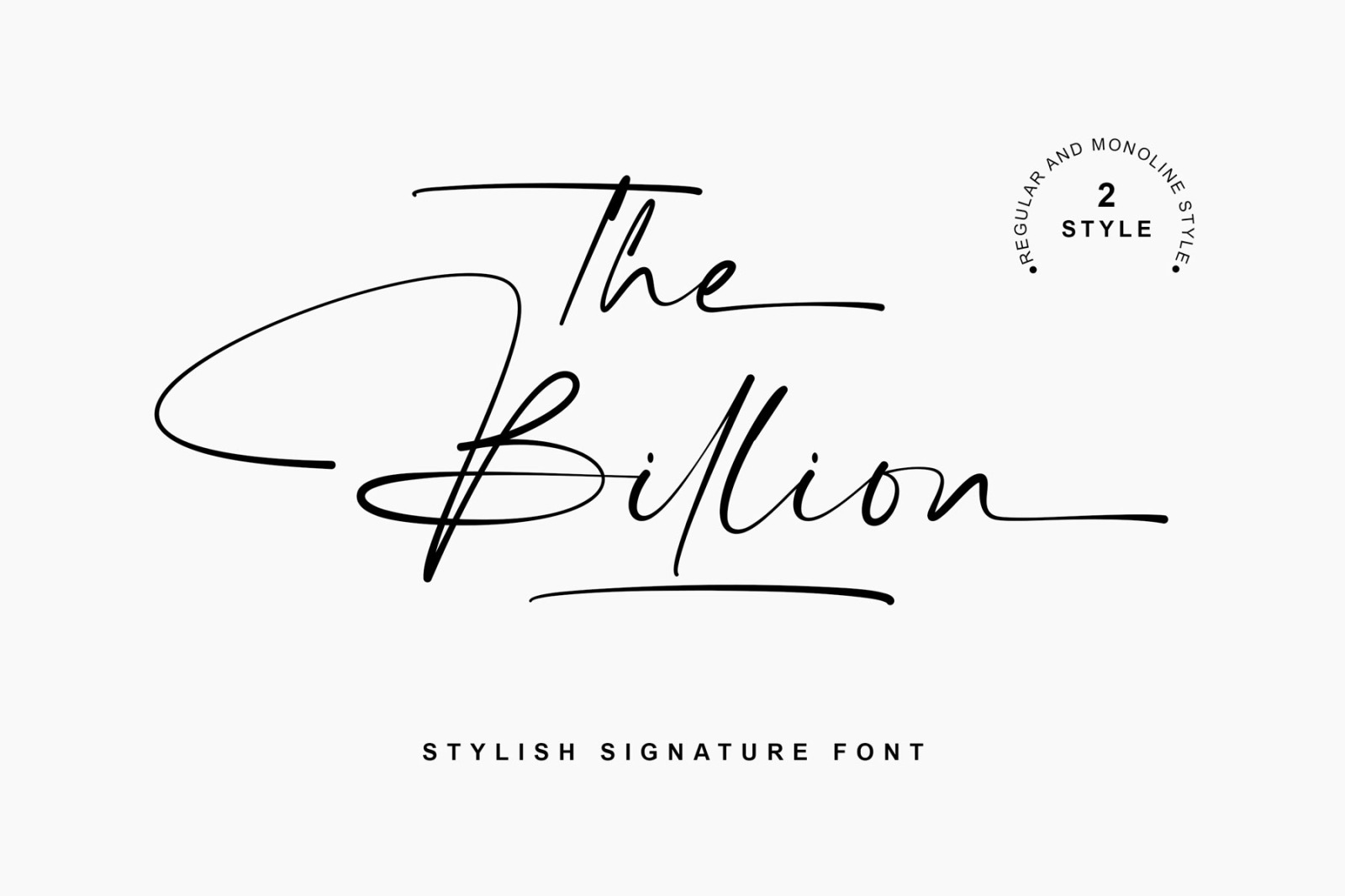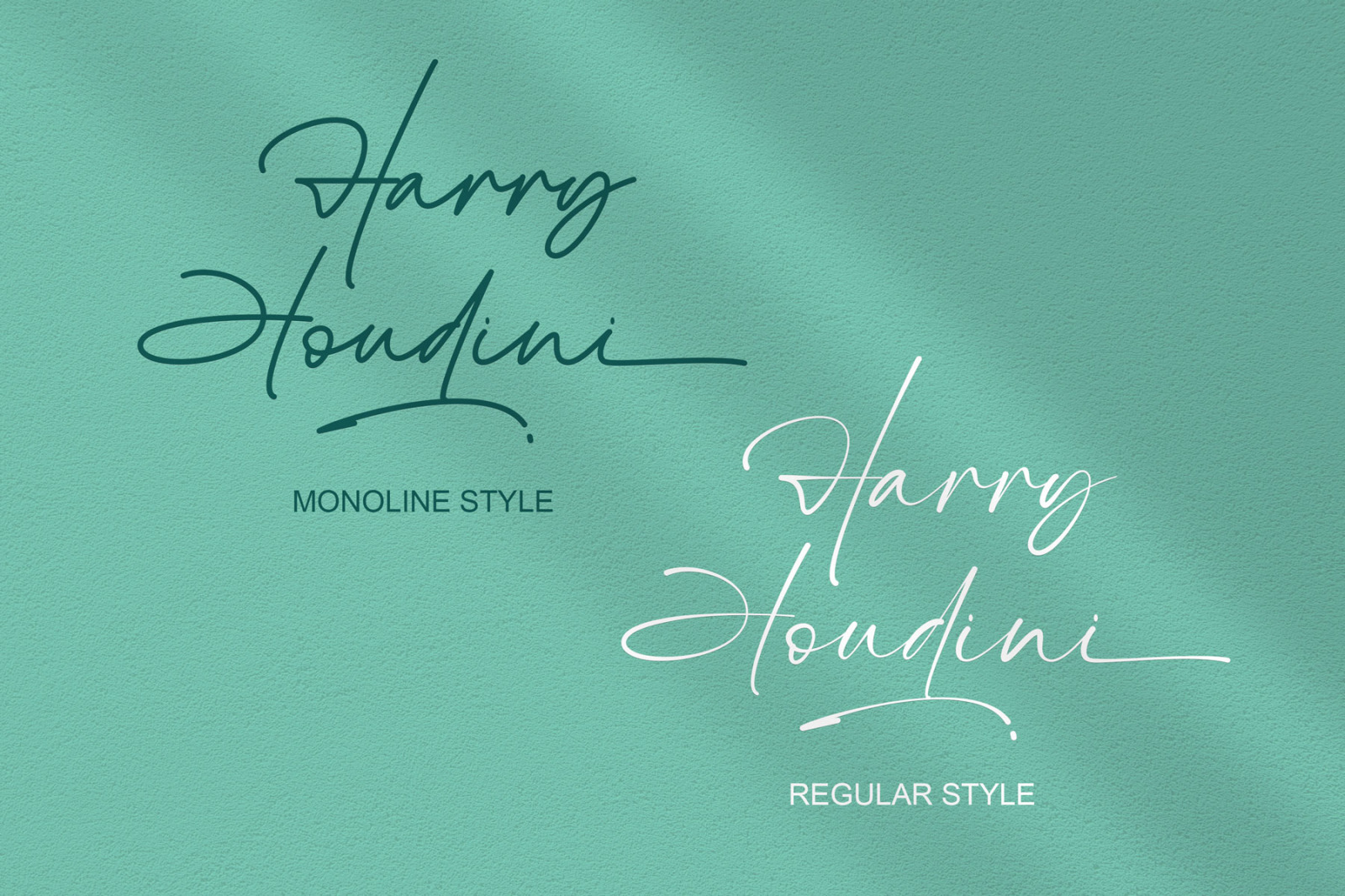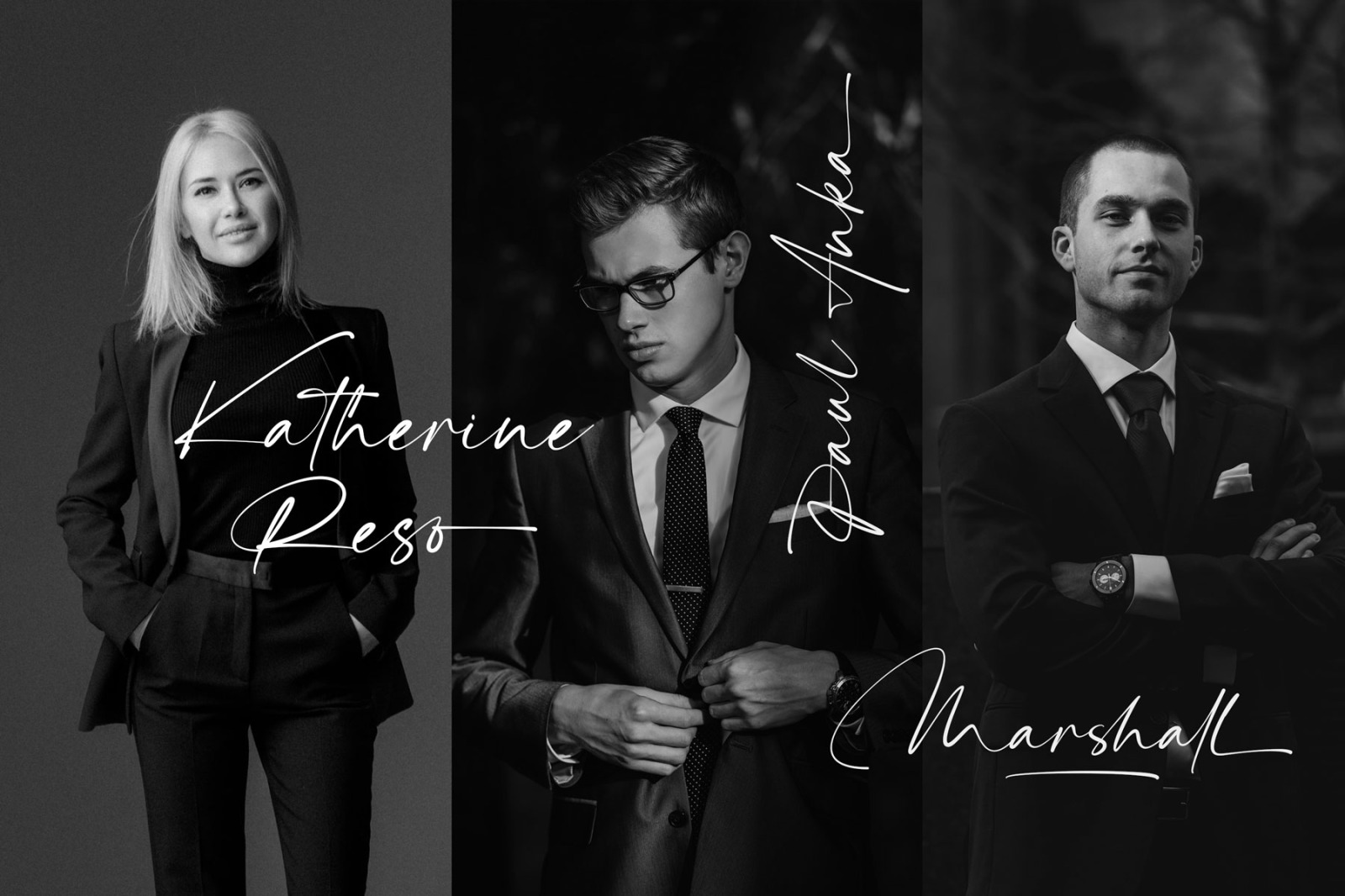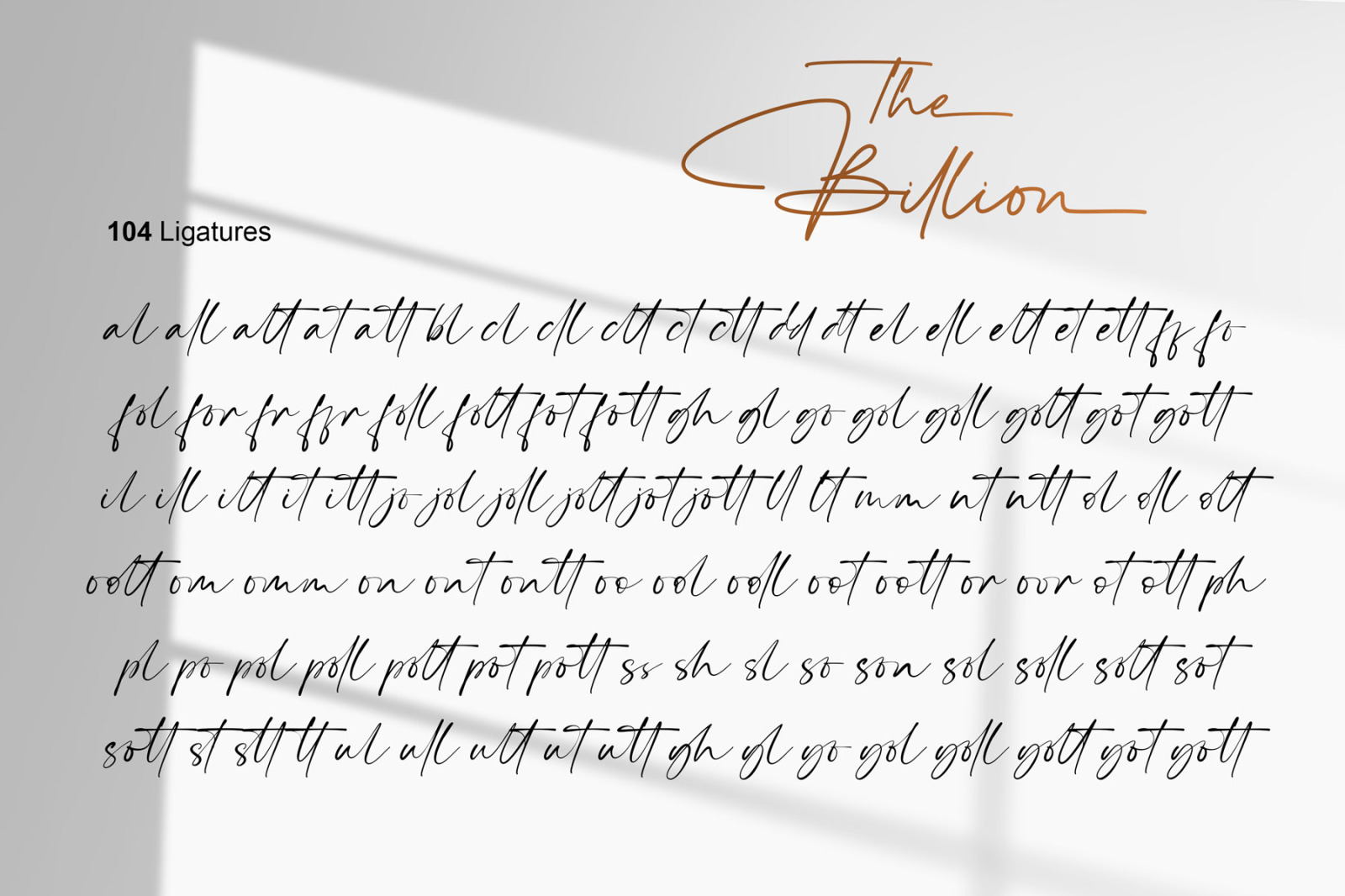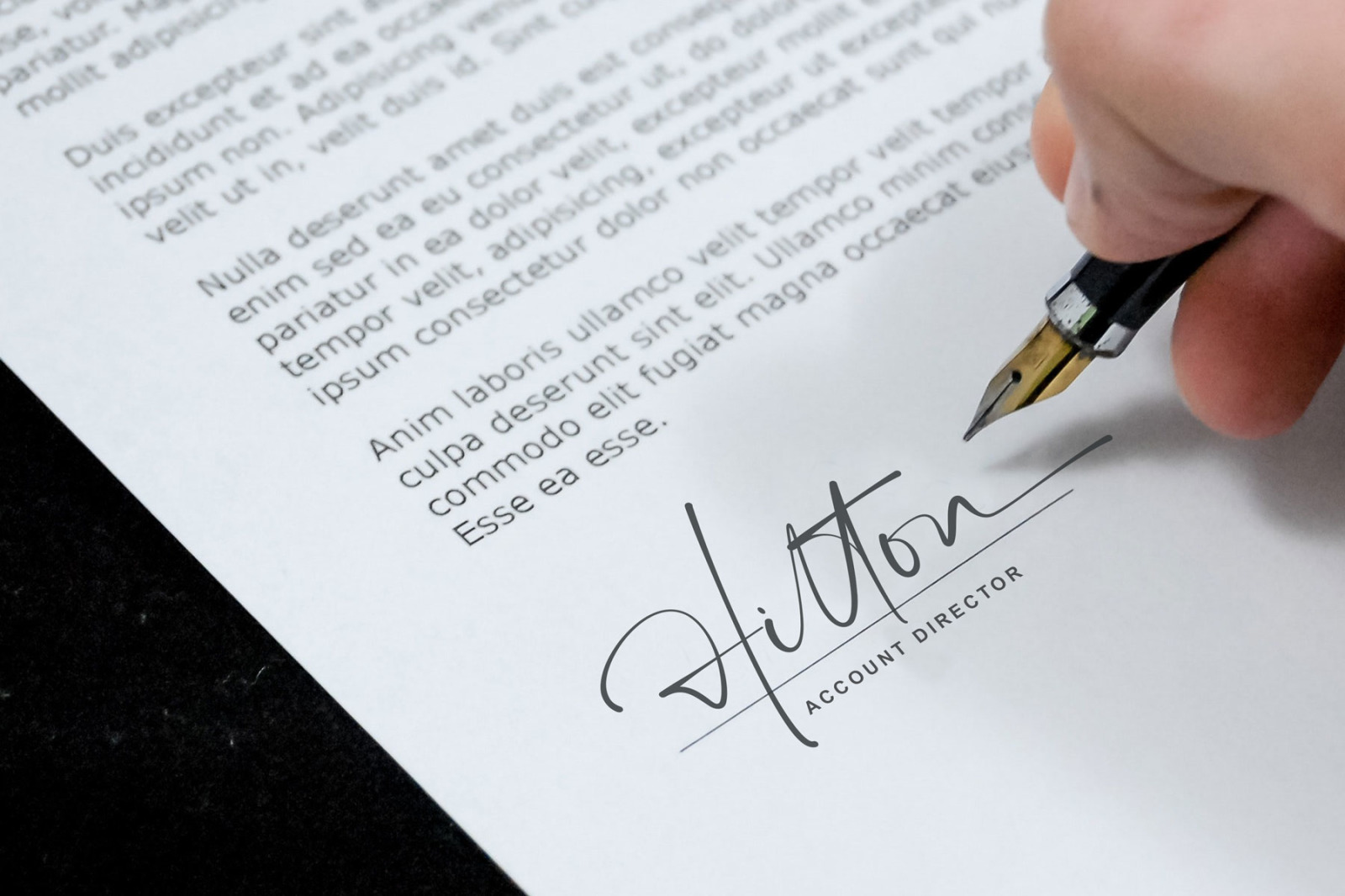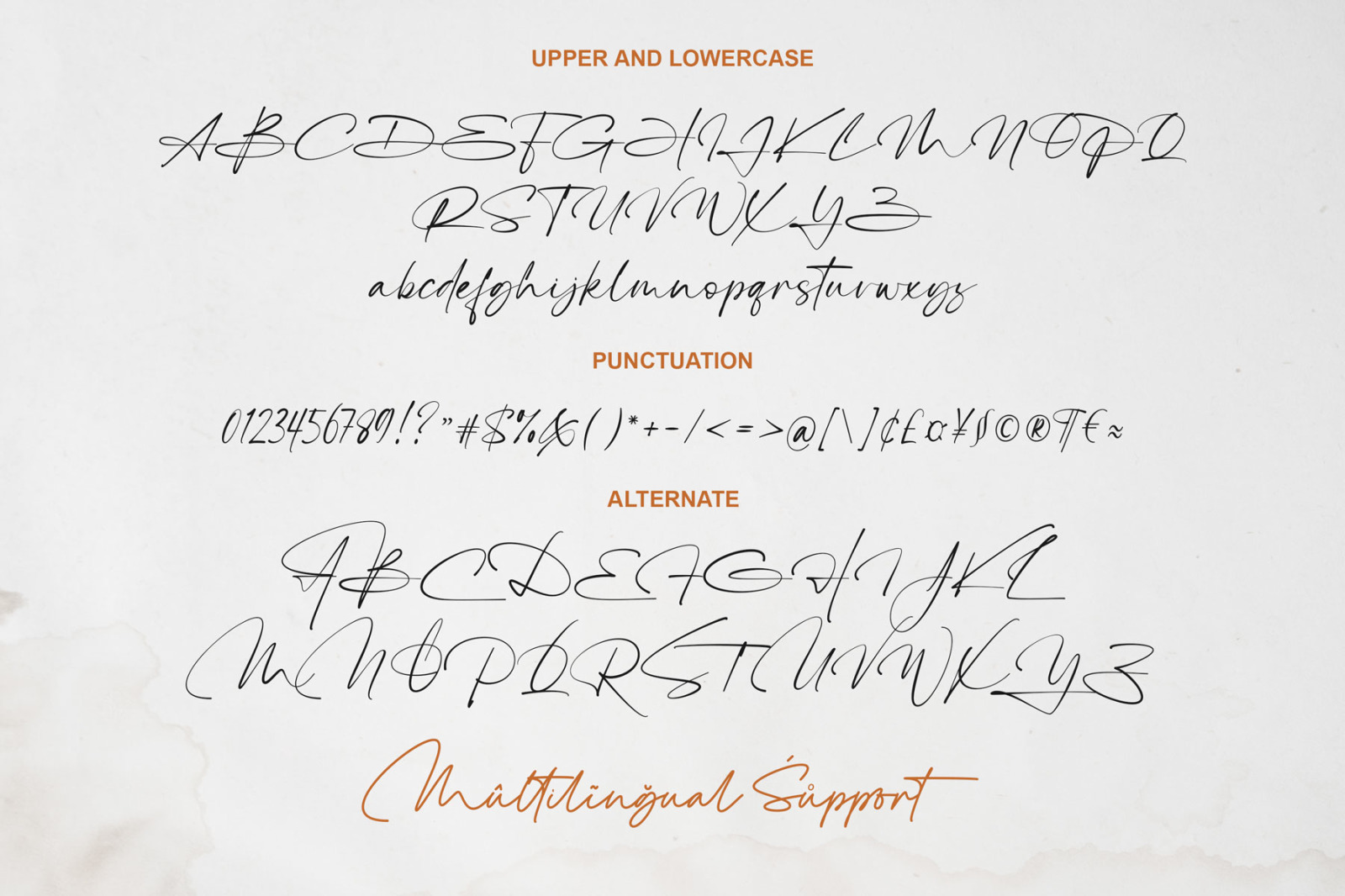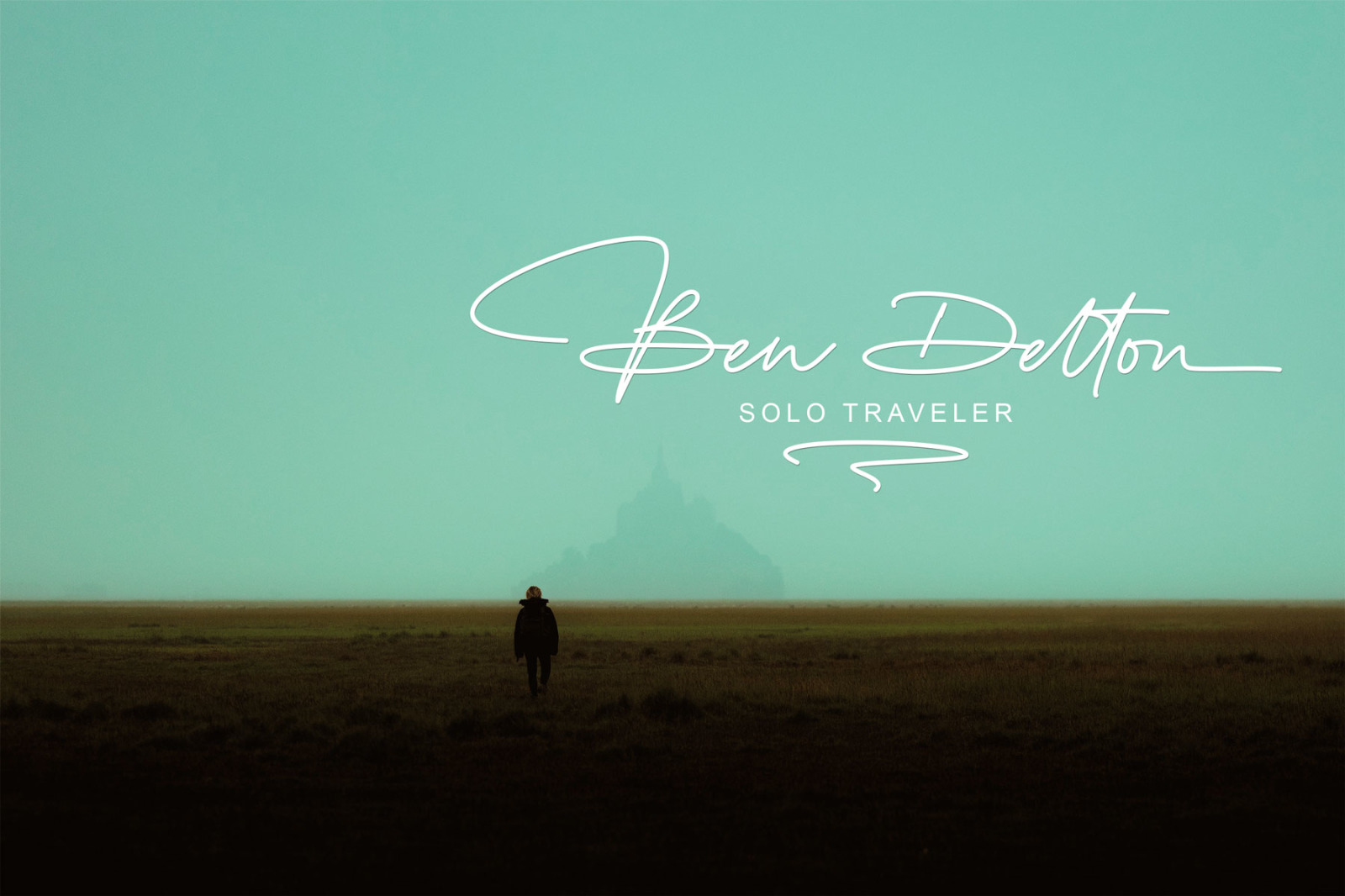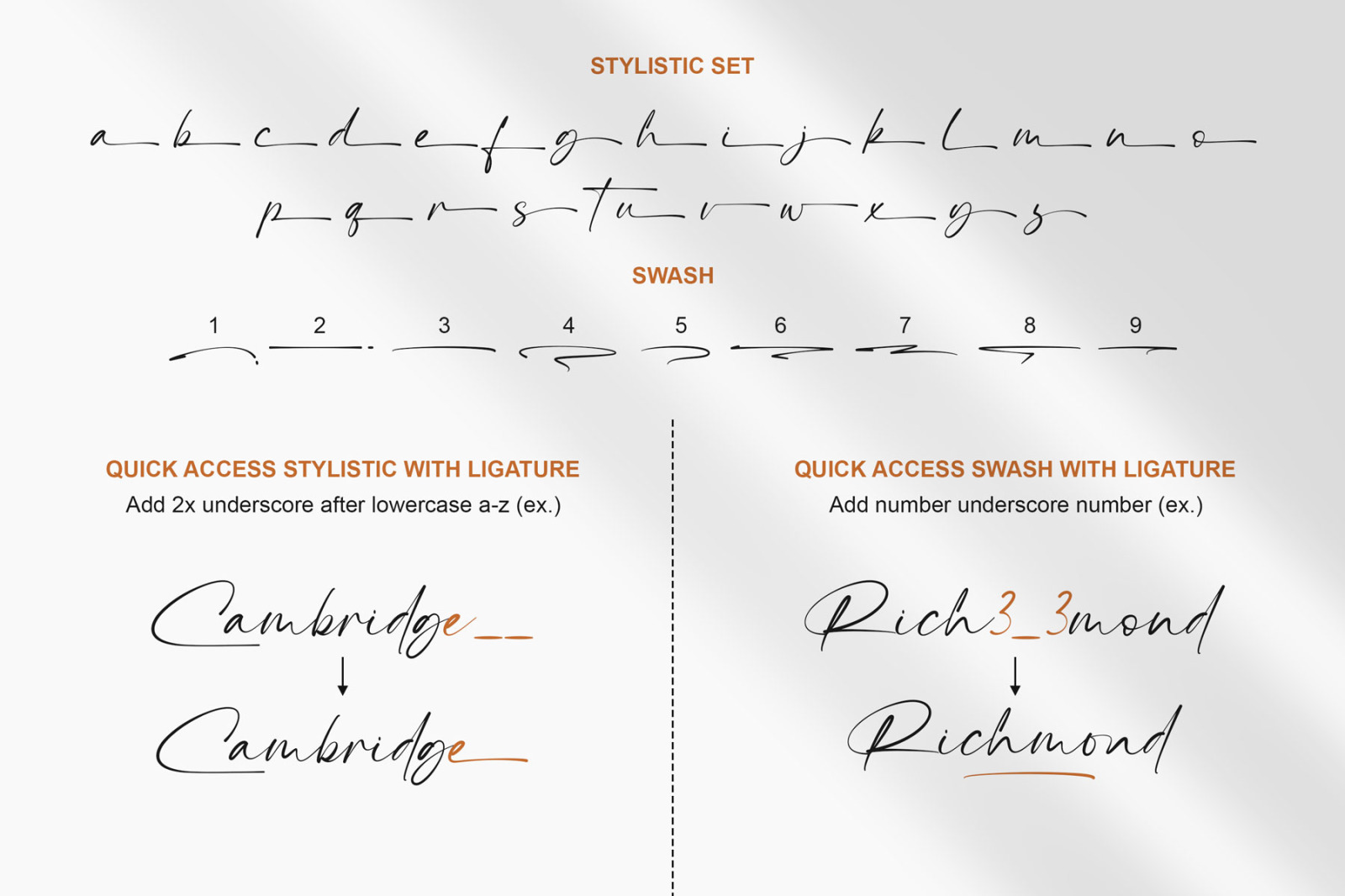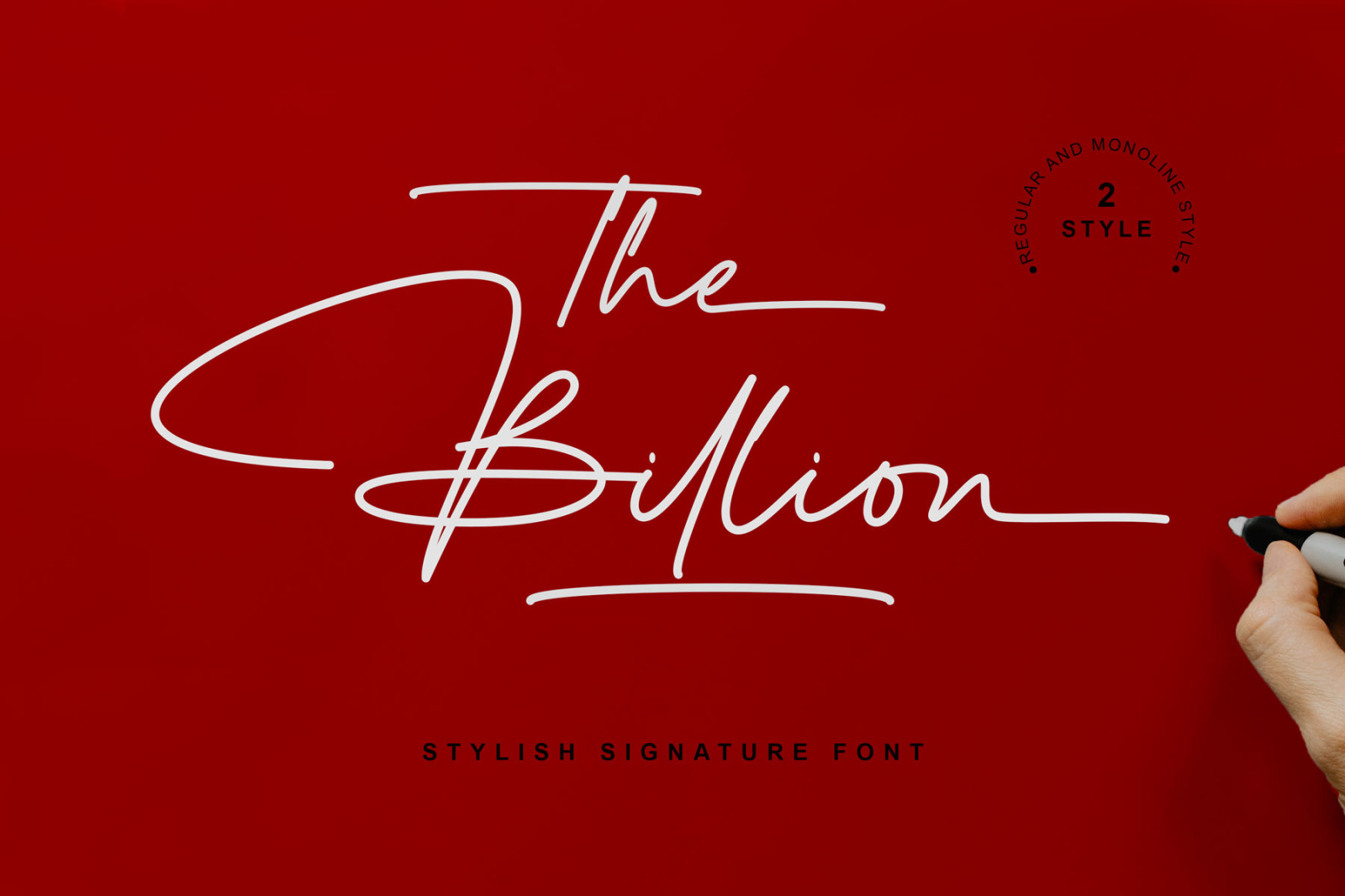
The Billion - Signature Font
The Billion is a perfect signature font, with 2 style (regular and monoline). The Billion Font is perfect for many different project such as logos & branding, invitation, stationery, wedding designs, social media posts, advertisements, product packaging, product designs, label, photography, watermark, special events or anything.
FEATURES
-Ligatures
-Swash
-Stylistic Set
-Alternate
-Uppercase and Lowercase letters
-Numbering and Punctuations
-Also Multilingual Support